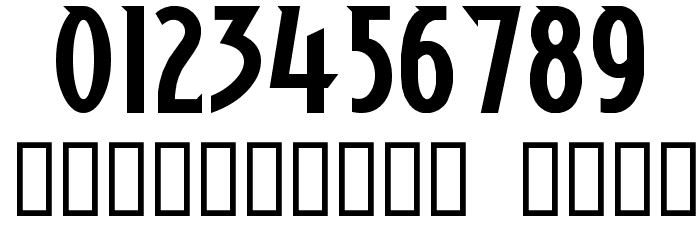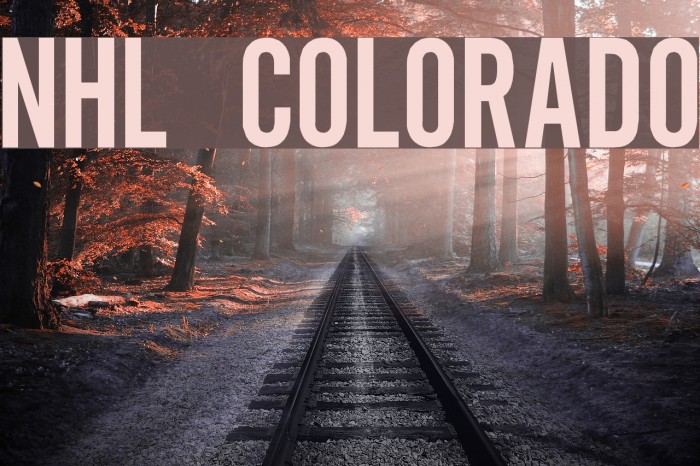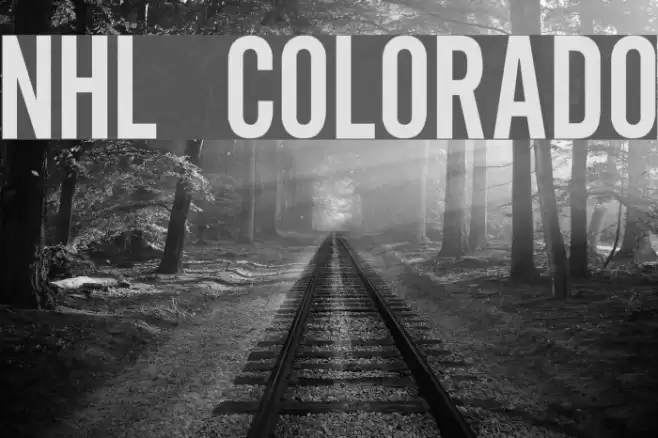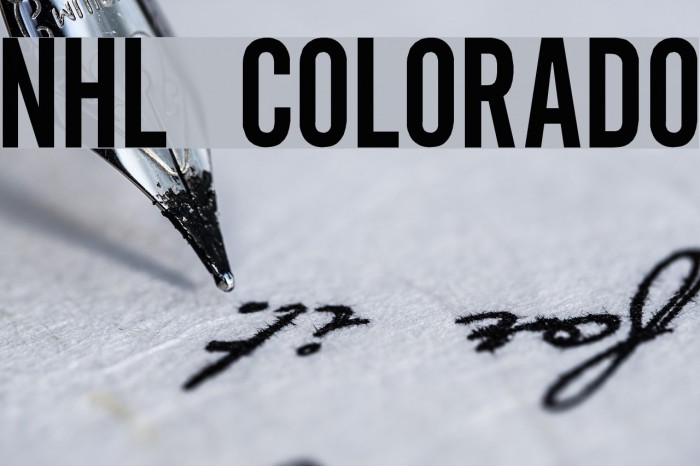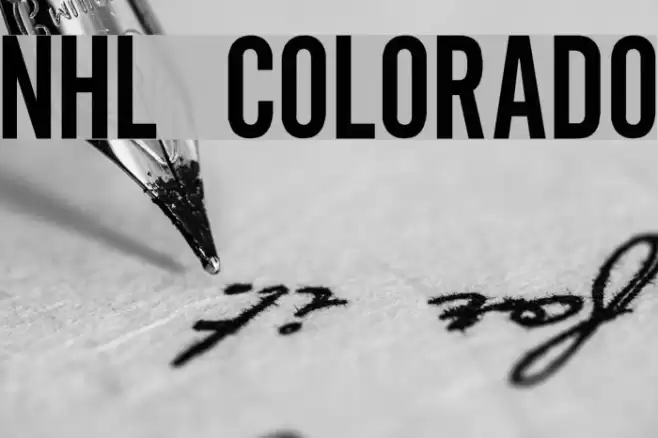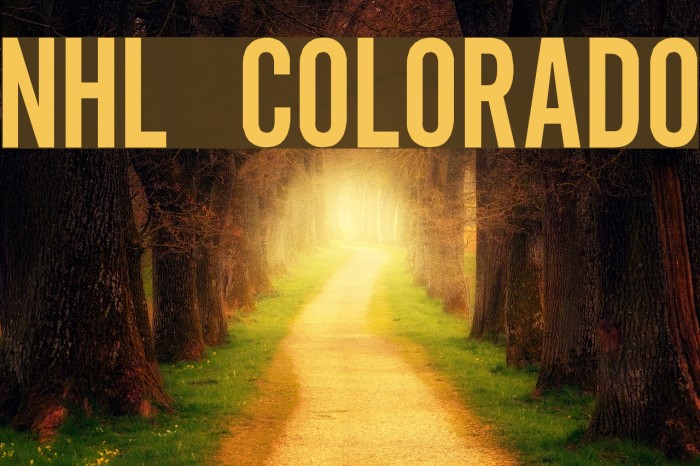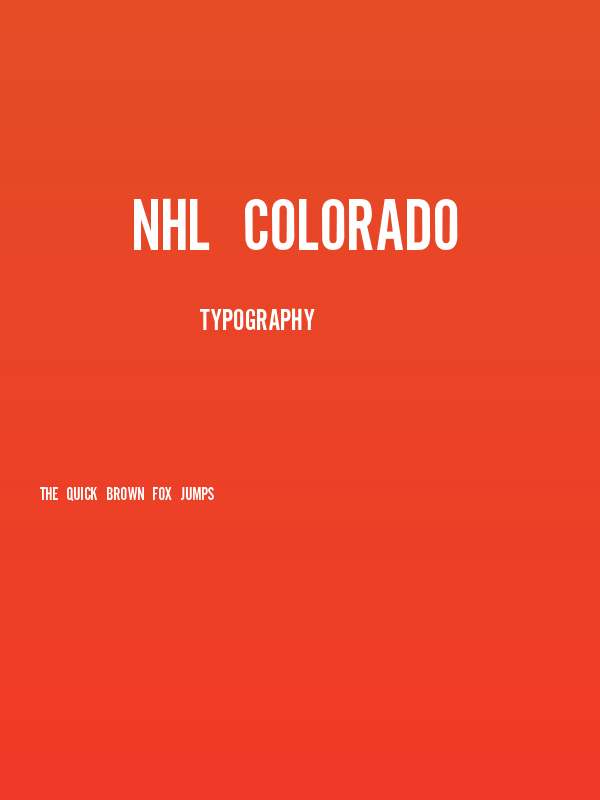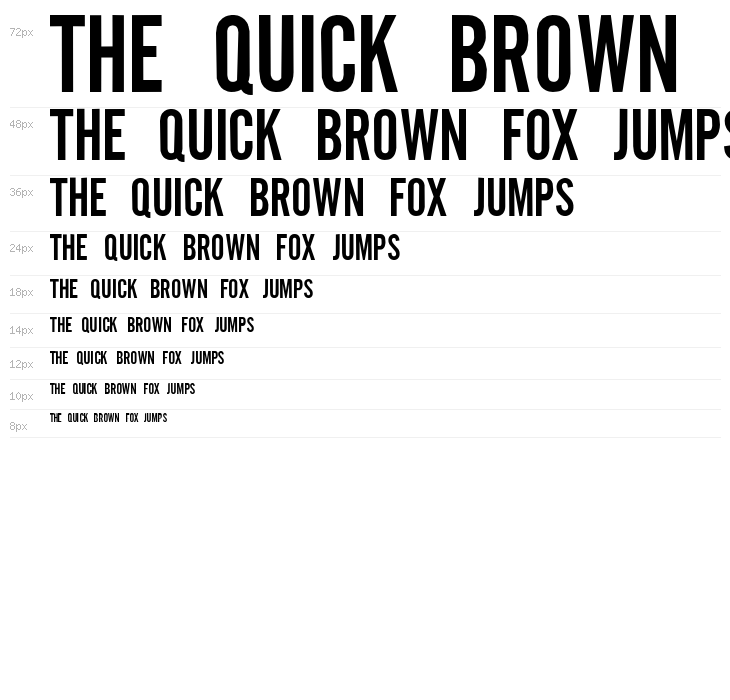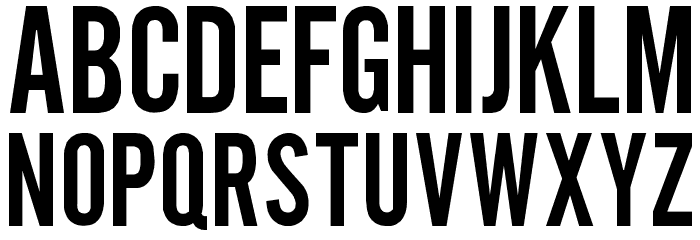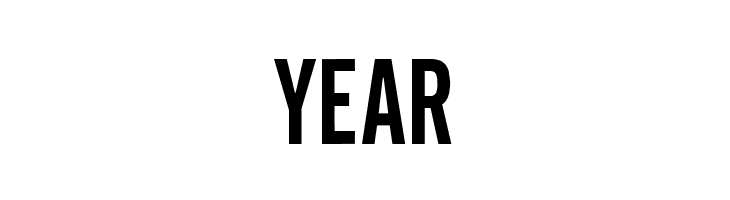
NHL Colorado Font
NHL Colorado Description
This font features bold, uppercase letters with a strong, impactful presence. The characters are slightly condensed, giving them a compact and powerful look. The numbers maintain the same boldness, ensuring consistency across all characters. The font lacks lowercase letters and special characters, focusing on a straightforward, no-nonsense style. Its clean lines and uniform stroke width make it highly legible, even from a distance, which is ideal for sports or team branding.
| Proposed Projects | Perfect for sports team branding, logos, and merchandise. It can also be used for posters, banners, and any project requiring a strong visual impact. |